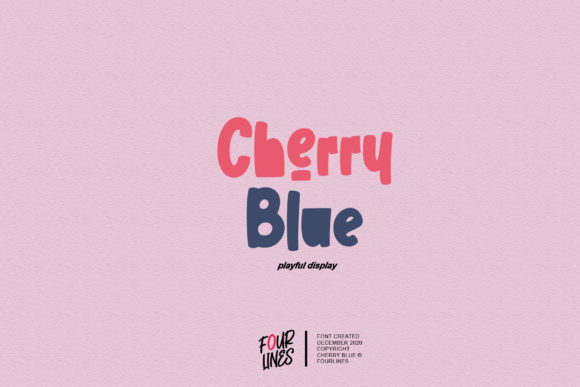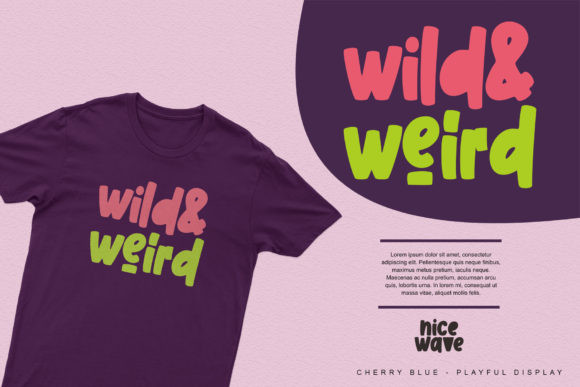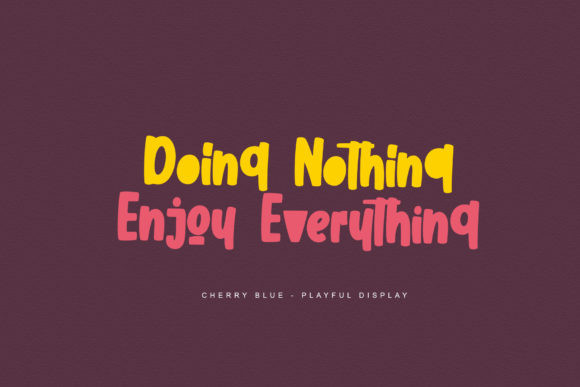
Cherry Blue Font
Cherry Blue is a sweet and playful display font, masterfully designed to become a top choice. It has a tasteful and friendly style, and as a consequence, it matches a wide range of casual designs.